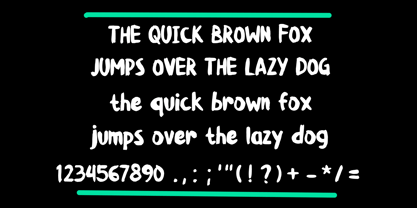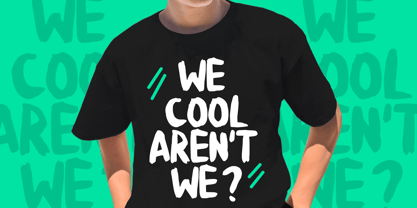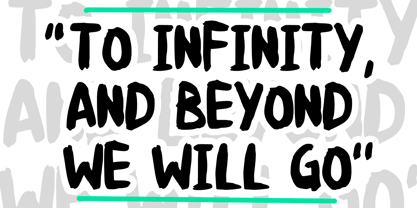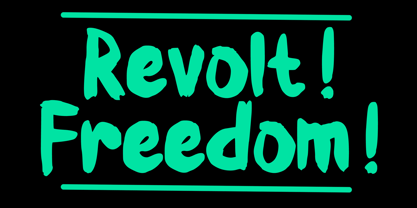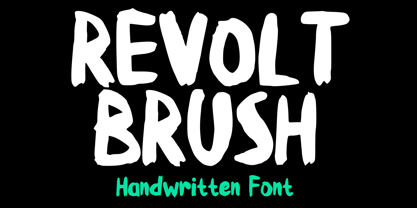
Revolt Brush
by Mvmet
The Revolt Brush Font Family was designed by Gabriel Valentinus and published by Mvmet. Revolt Brush contains 1 styles. More about this family
Inject a dose of rebellious attitude into your designs with Revolt Brush. This brush-display font embodies the undeniably edgy aesthetics of punk, grunge, and rock n' roll, making it a standout choice for any creative project. Expertly crafted, Revolt Brush is ideal for eye-catching movie and music posters, dynamic single covers, and captivating t-shirt designs. It also serves as the perfect option for stickers, clothing, and merchandise that exude an unapologetically daring style. Experience the rush of its distinctive cool energy and let Revolt Brush elevate your design journey with its bold character and versatility.
Designers: Gabriel Valentinus
Foundry: Mvmet